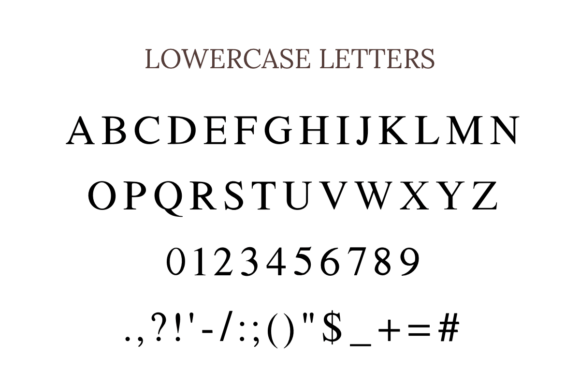
Mom Monogram Font
Mom Monogram is an elegant decorative font designed with love in mind. Featuring classic serif letterforms enhanced with delicate floral details, this typeface is perfect for Mother’s Day projects, monogram logos, personalized gifts, and heartfelt stationery. Soft butterflies and floral elements add a graceful, feminine touch that makes every word feel like a warm hug.